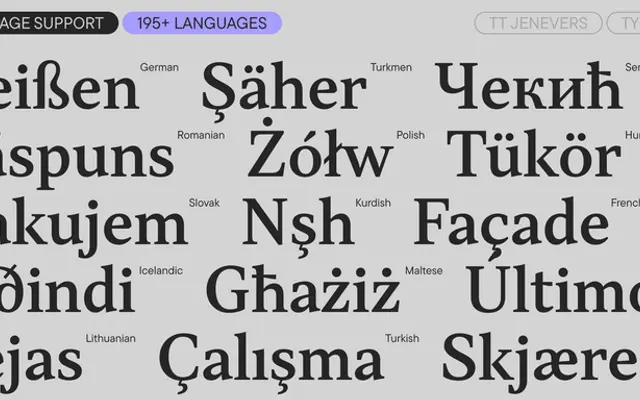
TT Jenevers
TypeType · Antonina Zhulkova, Marina Khodak, Vika Usmanova, Ivan Gladkikh · 2018
A Dutch-influenced display serif from TypeType with asymmetrical serifs, irregular oval stress and broad Latin and Cyrillic coverage across 14 styles.
Released in 2018 and substantially updated in 2025, the family draws on the Dutch modern serif tradition, with serifs that are asymmetrical in cut and ovals that carry stress inconsistently between letters — absent in 'o', present in 'p' and 'q'. Fourteen styles span Light to Black in both upright and true italic, with two variable font files added in the 2025 update, and 30 OpenType features including small caps, oldstyle figures and five stylistic sets. The generous x-height and open semi-oval construction give it a strong headline presence while retaining enough legibility for continuous text.
A Dutch modern serif with asymmetrical serifs and irregular oval stress, designed primarily for display use but with proportions that allow text setting. The foundry explicitly classifies it as a display typeface.